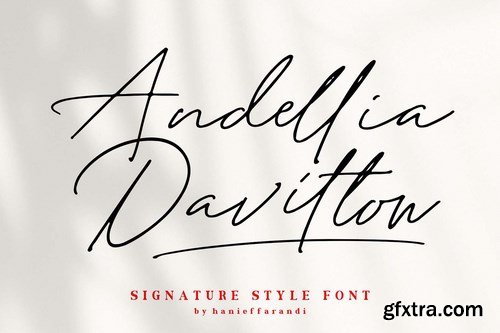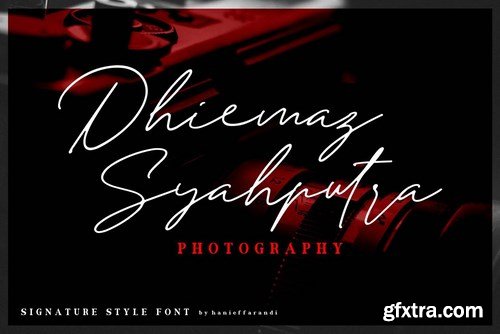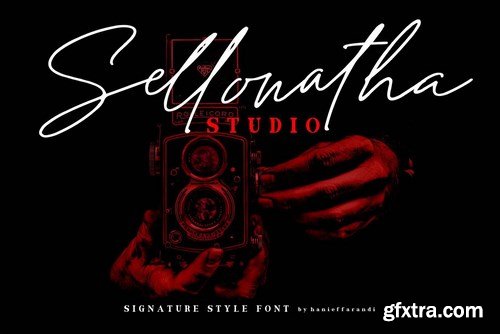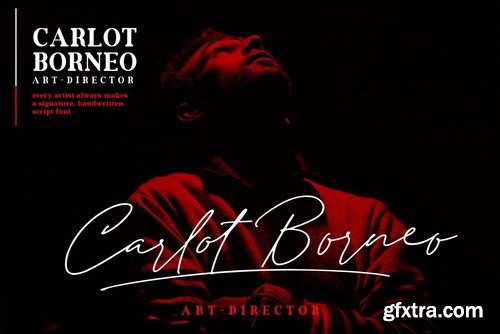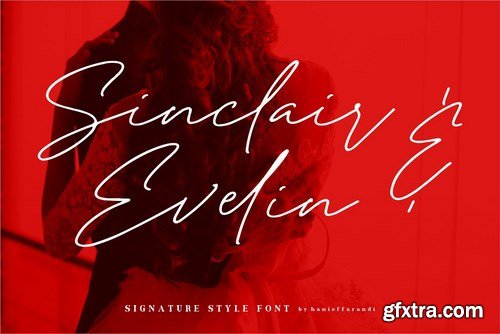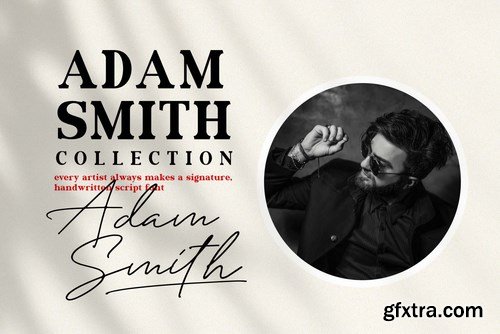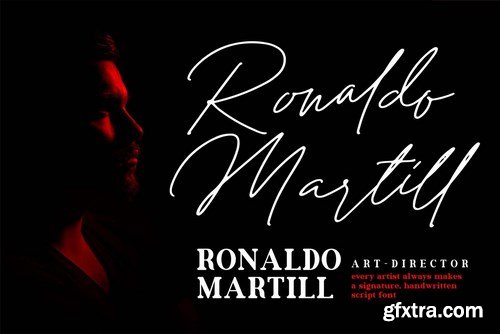
Andellia Davilton font with monoline. i hope this font is perfect for creating signature logos and watermarks for photography studio or wedding invitation, Lable, Logo, Magazine best for initial or branding logo signature.
Andellia Davilton a full set of beautifull hand letters, numerals, a large range of punctuation and ligatures. Giving realistic hand-lettered style. What do you get, darling?